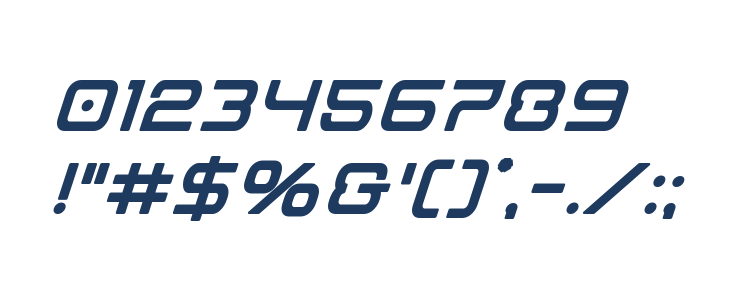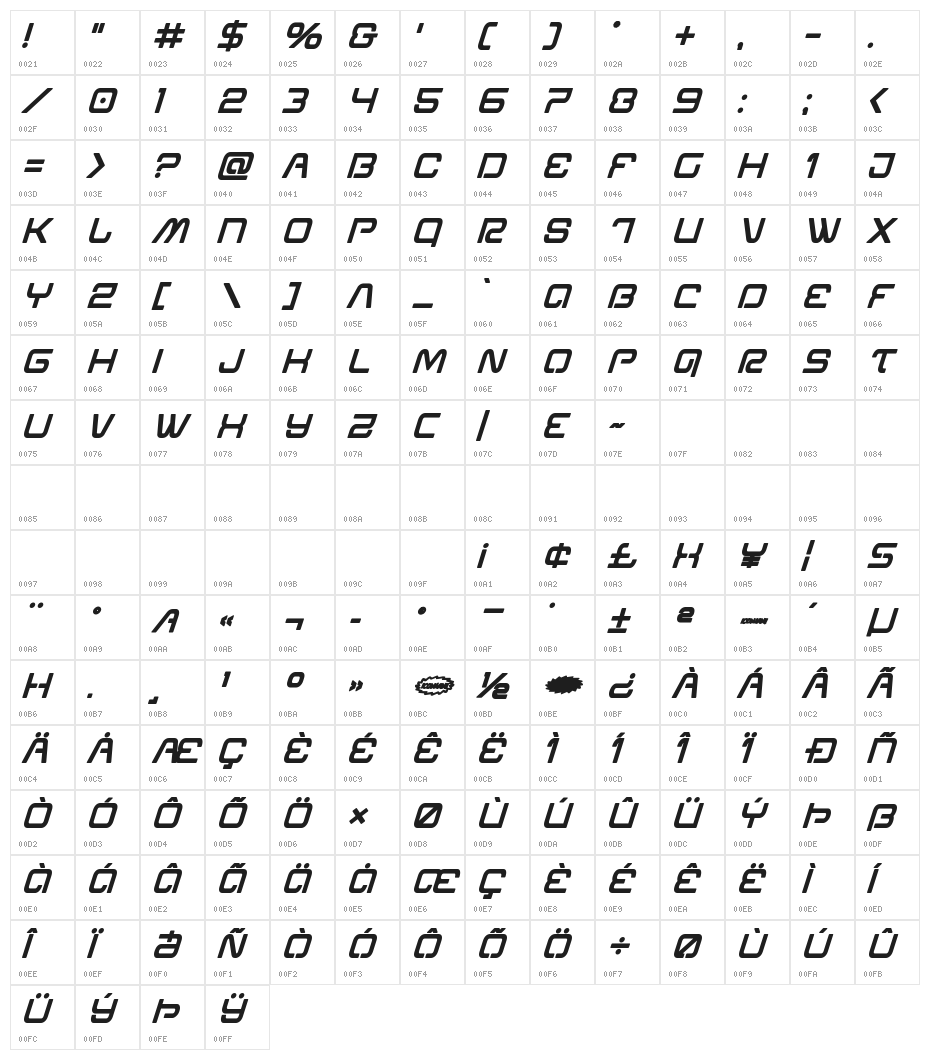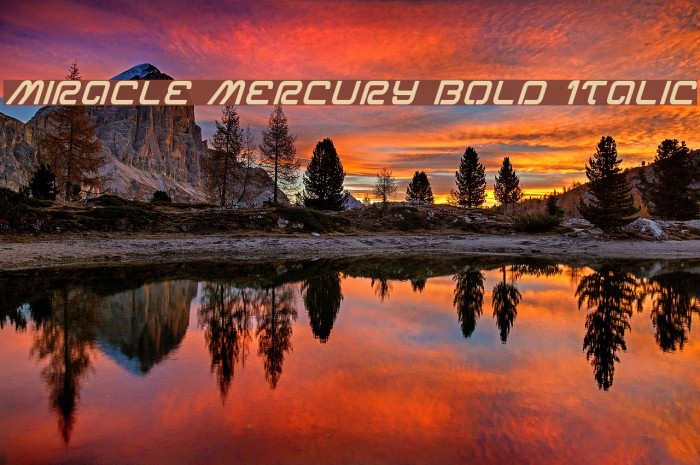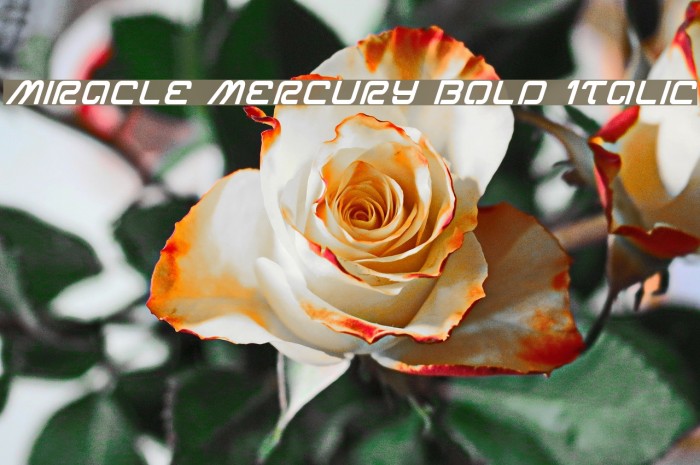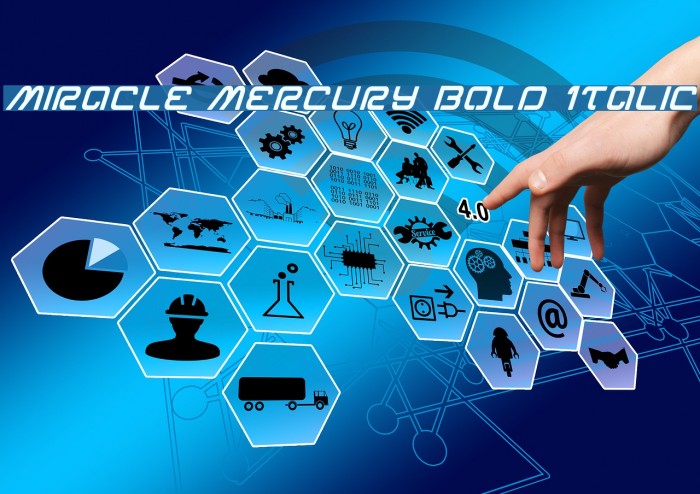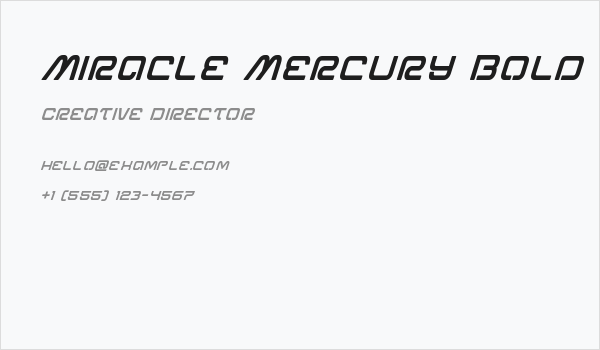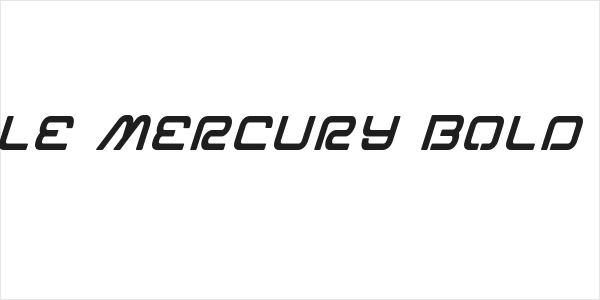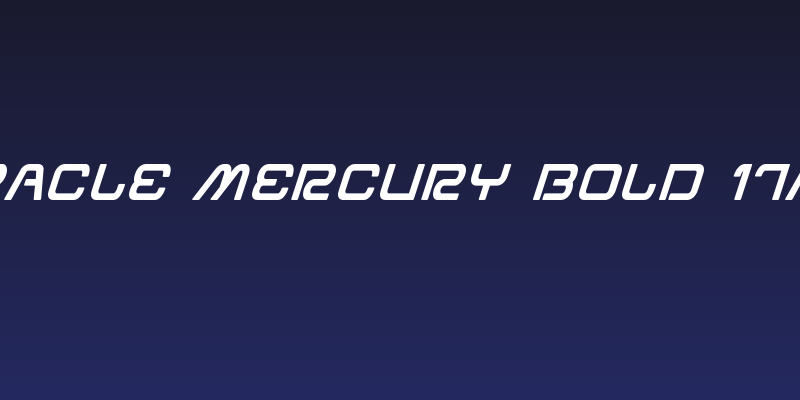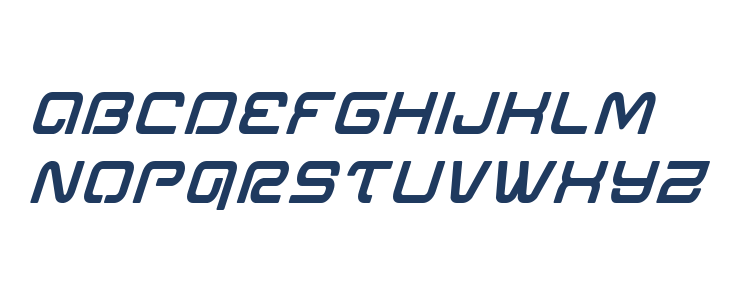
Miracle Mercury Bold Italic Font
Miracle Mercury Bold Italic Description
This font features a bold and italic style with a modern, futuristic appearance. The characters are slightly slanted, giving a sense of motion and dynamism. The strokes are thick and consistent, providing a strong visual impact. The design is clean and geometric, with rounded edges that soften the overall look. The uppercase and lowercase letters maintain a uniform style, ensuring readability and cohesion. Numbers and special characters are designed to match the bold and italicized aesthetic, making them stand out while remaining harmonious with the alphabetic characters.